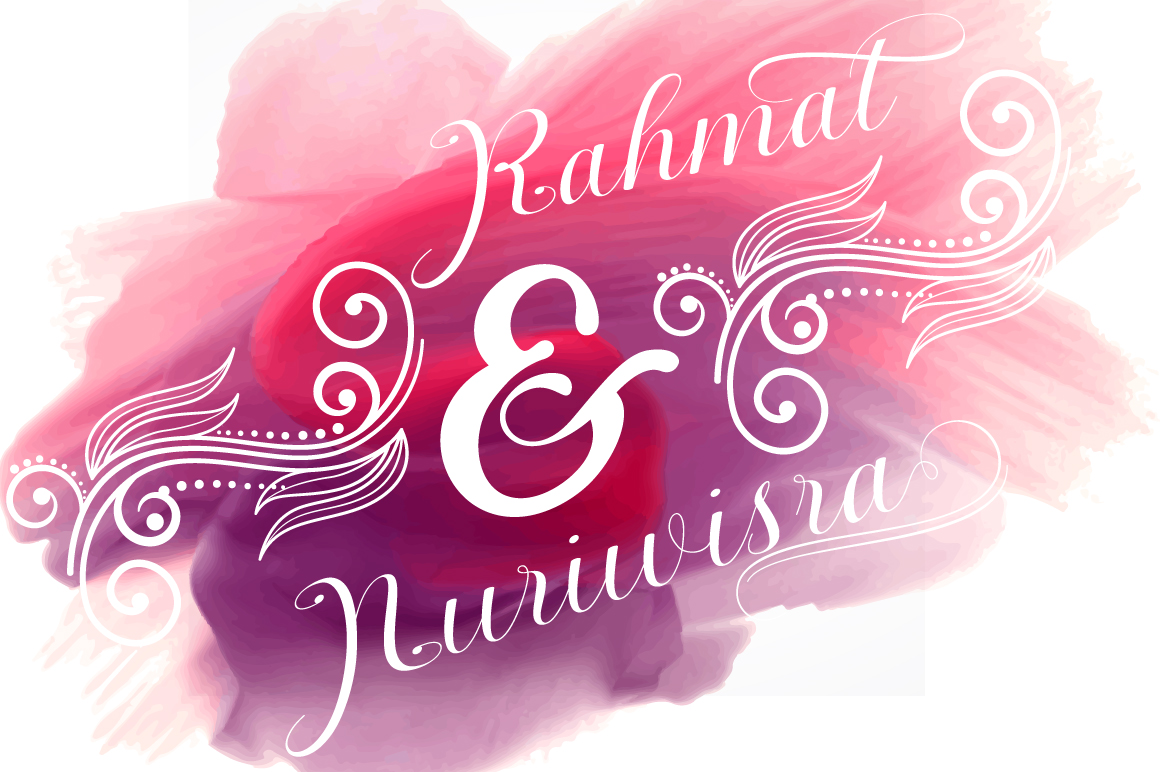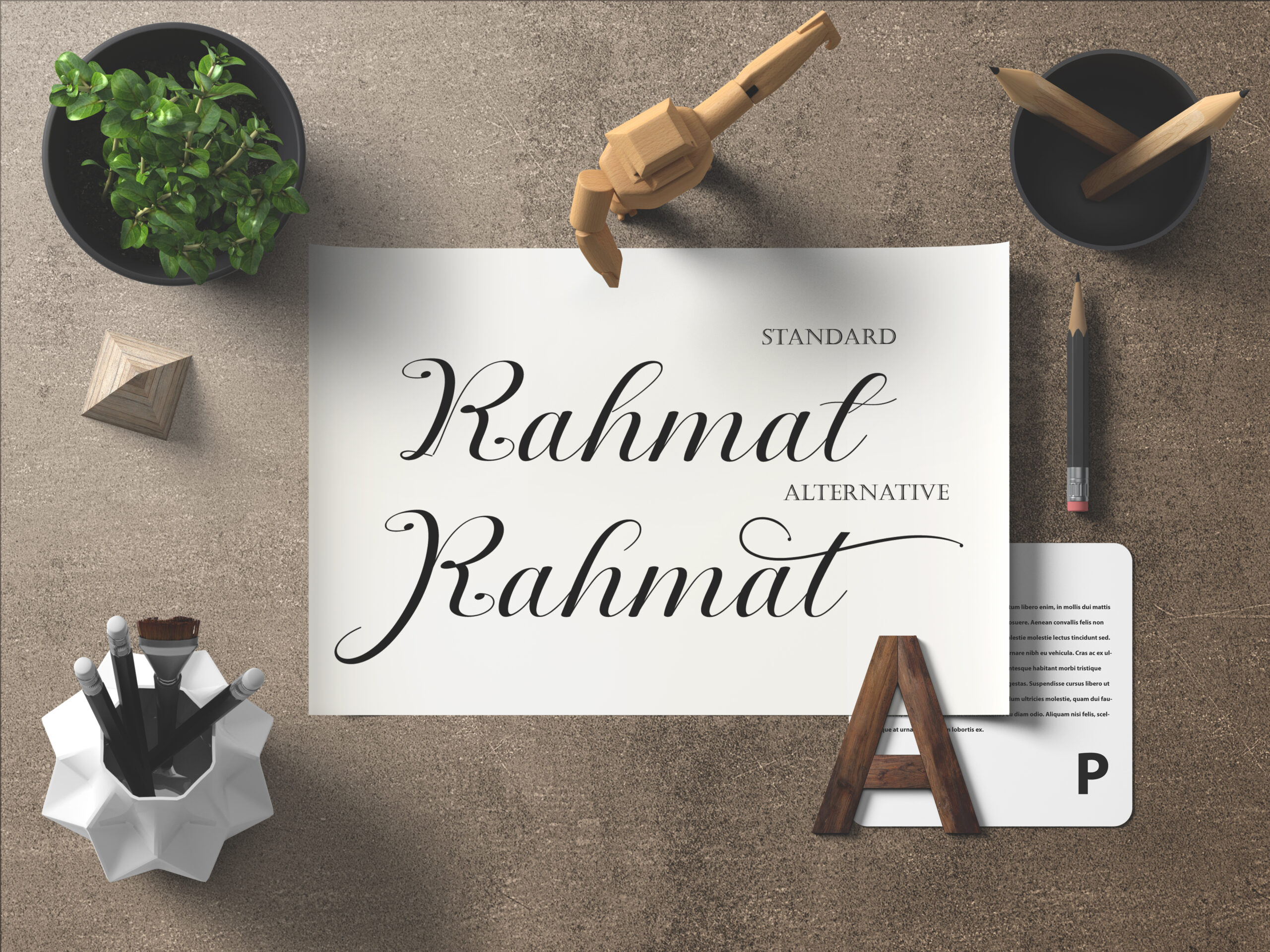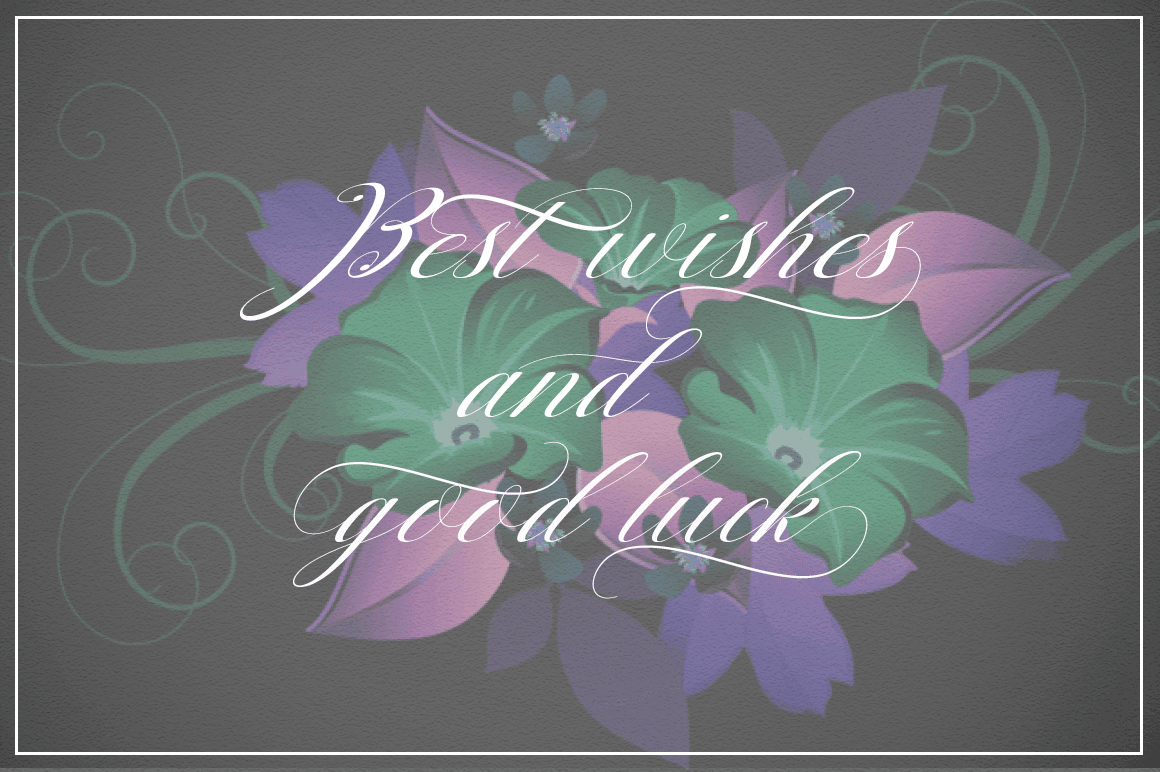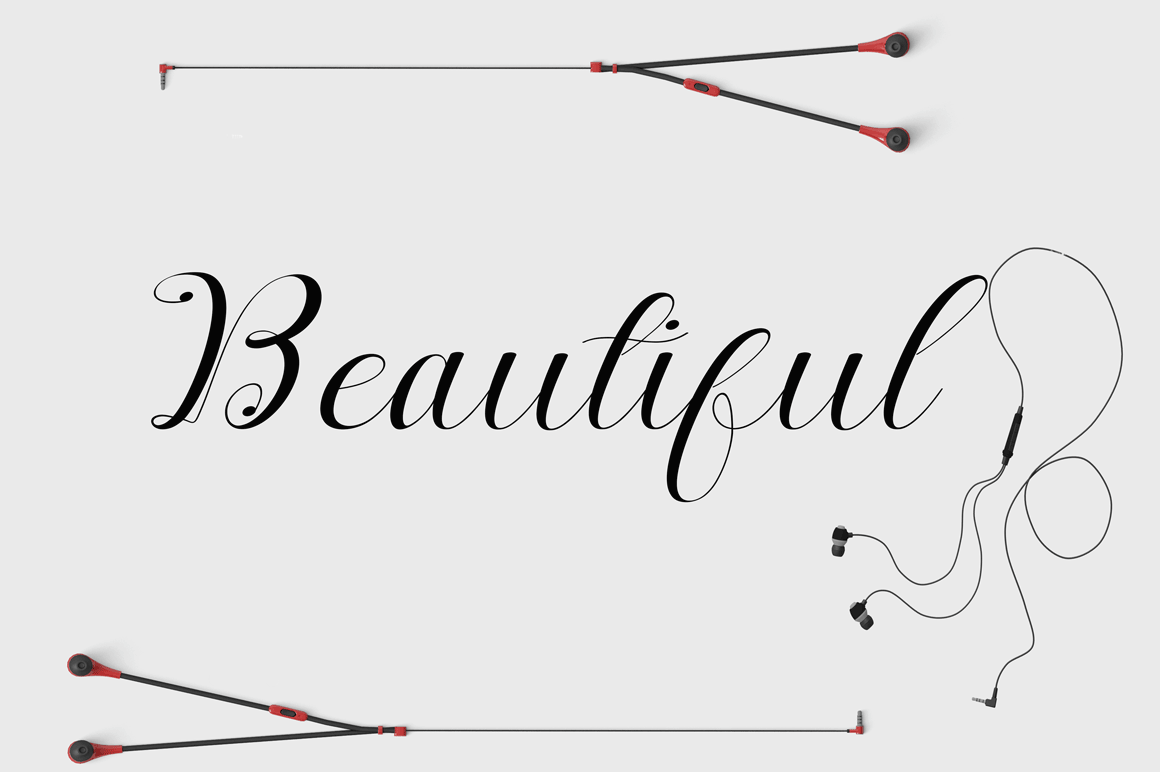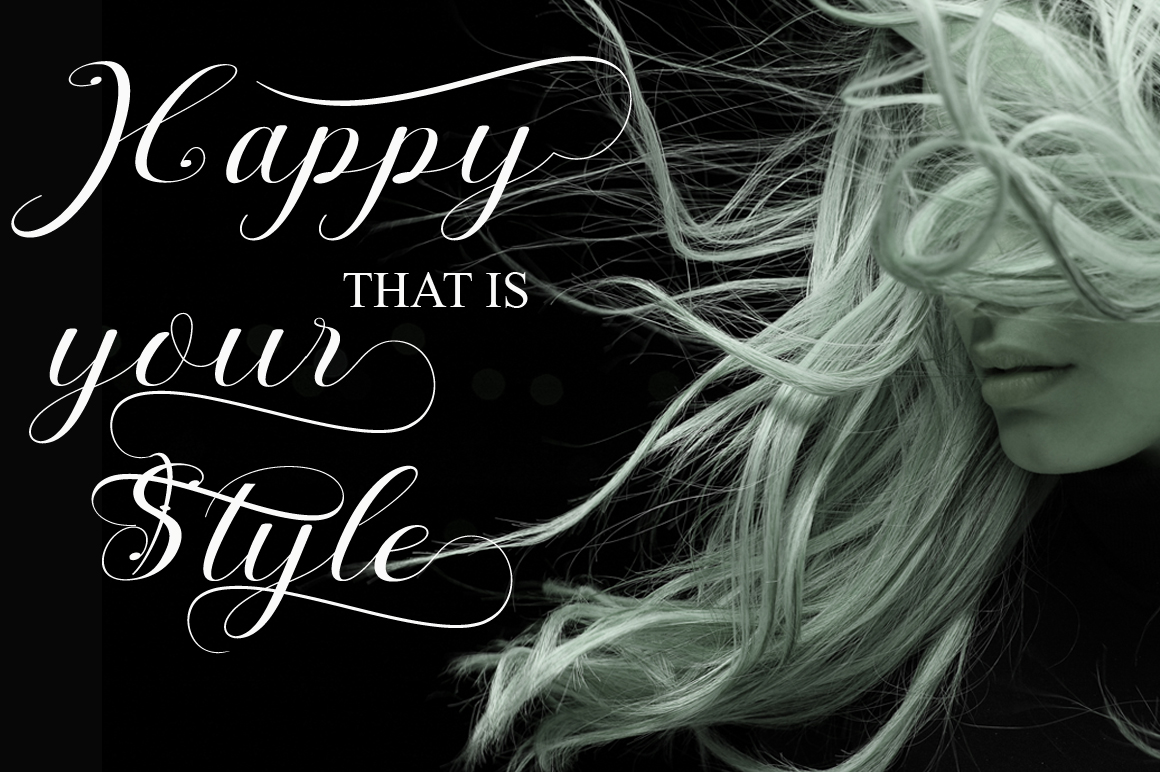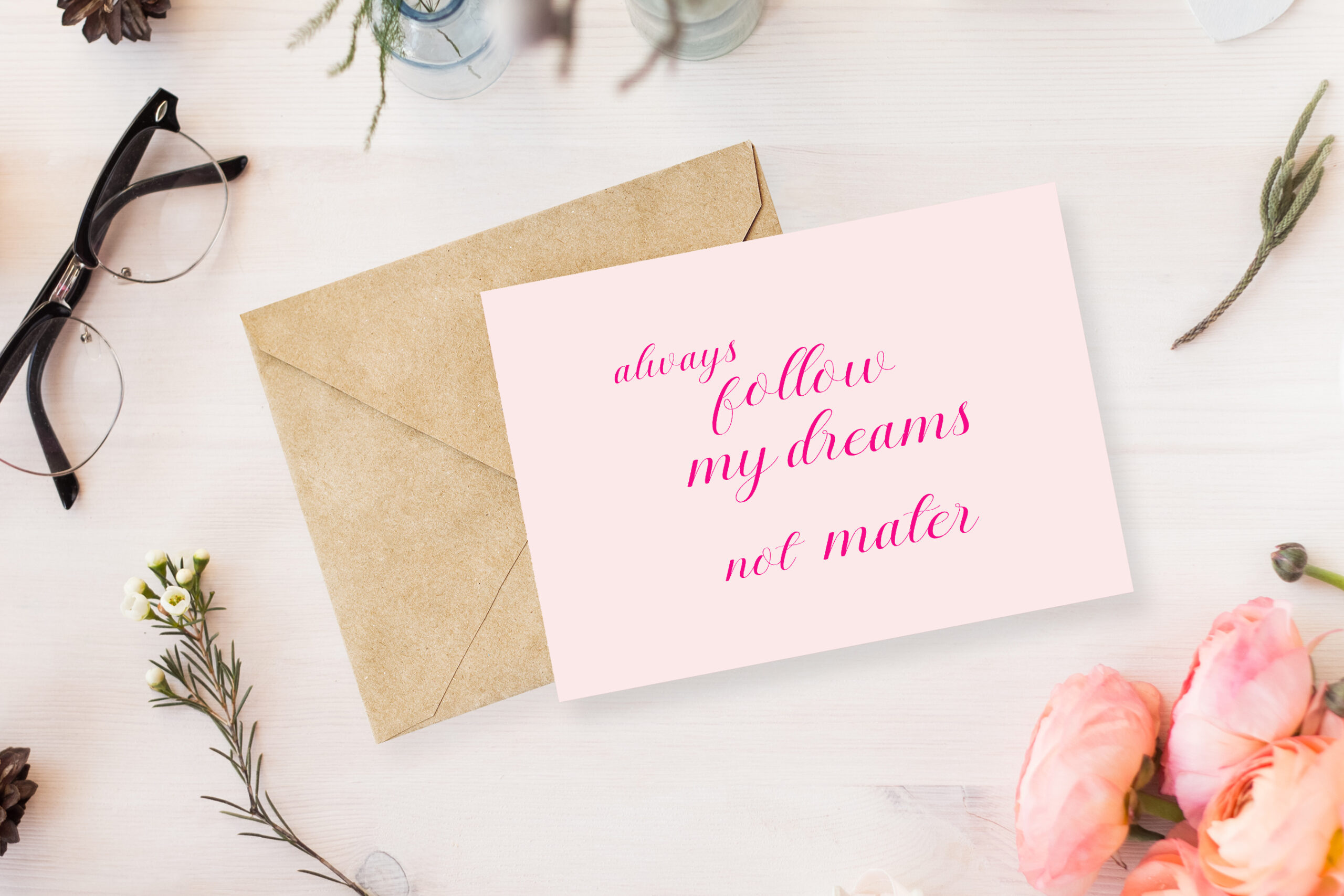
Nantiya Font
About Nantiya Font
Nantiya is a gorgeous script font, perfect for a wide range of delicate and feminine project types. This calligraphy font was crafted with exquisite attention to detail.